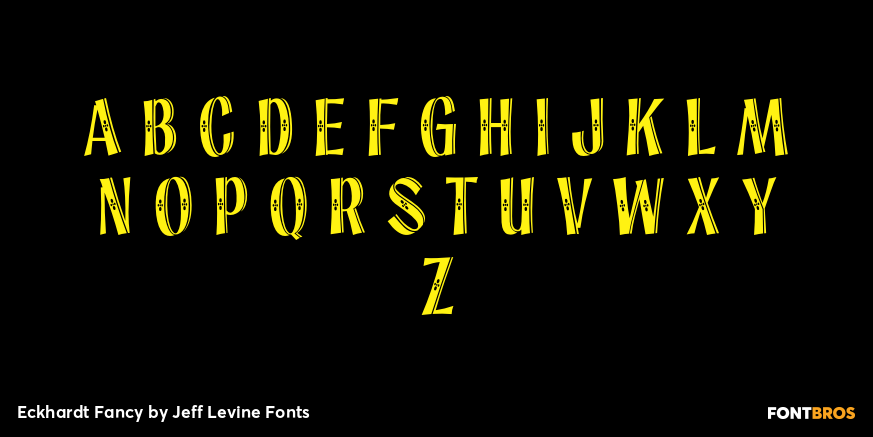
Eckhardt Fancy
Eckhardt Fancy JNL was named in honor of Al Eckhardt (1929-2005), a talented sign painter and good friend of font designer Jeff Levine. The design was inspired by a vintage alphabet found within a collection of decorative display alphabets from the type collection of the late Dan X. Solo. Font Styles: